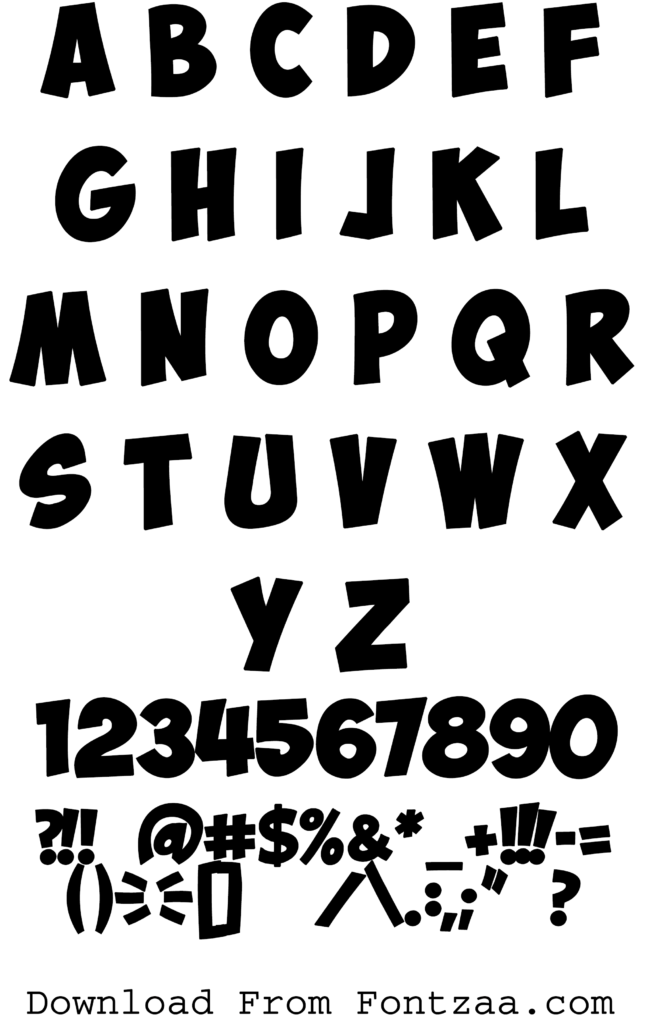
Obelix Pro is a playful headline font that adds wit to working with so much more fun and character. Based upon the comic lettering and the cartoon feel, its characters show off loads of energy and personality. This typeface is suited for making expressive headlines, posters with wit, and dynamic branding materials.
Developed from a design yet playful-looking, Obelix Pro is readable and flexible. Clarity within letterforms allows text to be read with ease in every size, which, therefore provides communication on other levels of media and platforms. Used for headlines, body text, or decorative elements, Obelix Pro is suitable to create a vivid and long-lasting visual impression.
Obelix Pro Font Family
- Obelix Pro Regular Font
- Obelix Pro Bold Font
- Obelix Pro Bold Italic Font
- Obelix Pro Italic Font
Besides the extraordinary appearance of Obelix Pro Font, it’s convenient and easy to handle. It is compatible with most design software, as the case is with support for a wide range of characters and symbols, fitting any kind of project and target group. Whether you do children’s books, adverts that should be striking, or branding projects that should be one in a million, Obelix Pro Font is there to fill your designs with boldness and creativity.